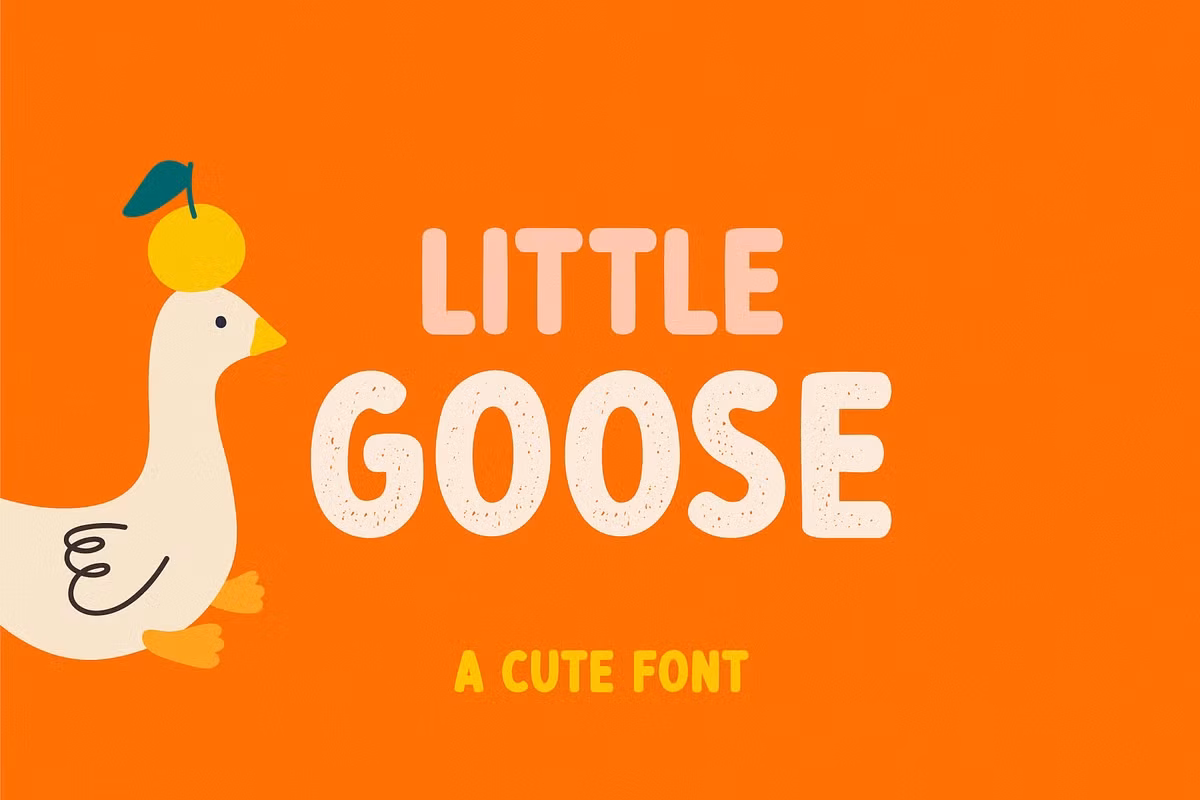
Bring charm and personality to your designs with Little Goose | Cute Font Free Download. This playful, hand-drawn font is perfect for children’s projects, greeting cards, logos, branding, and any creative design that needs a friendly, whimsical touch.
Little Goose features rounded, friendly letterforms with a fun, casual vibe, making it ideal for creating engaging and approachable typography. It includes uppercase and lowercase letters, numerals, punctuation, and multilingual support, giving you the flexibility to experiment with various design ideas.